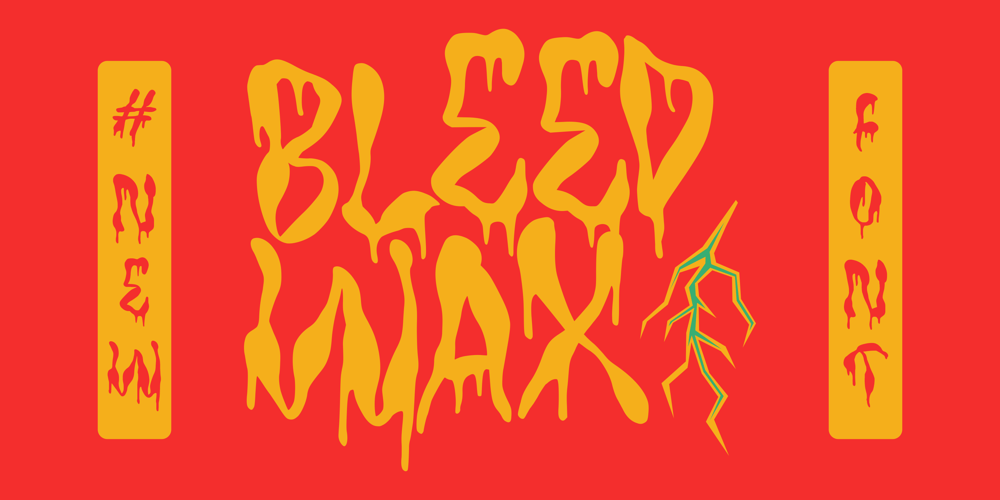
TF Bleedwax Font Family was designed by Miftahul Habib and published by Teenage Foundry. TF Bleedwax contains 1 styles and family package options. TF Bleedwax Font – an eerie and spine-chilling typeface perfectly suited for Halloween-themed designs. This font exudes a horror style, created specifically to send shivers down your spine. Each letter is meticulously crafted to resemble dripping blood, giving your designs a blood-curdling and macabre feel. With its gory and unsettling appearance, “TF Bleedwax” font is sure to add a terrifying touch to any Halloween project, horror movie poster, haunted house flyer, or spooky party invitation. Let this font unleash a wave of fear and make your designs stand out in the dark and creepy night.Multilingual contained: Afrikaans, Albanian, Asu, Basque, Bemba, Bena, Breton, Catalan, Chiga, Cornish, Danish, Dutch, English, Estonian, Filipino, Finnish, French, Friulian, Galician, German, Gusii, Indonesian, Irish, Italian, Kabuverdianu, Kalenjin, Kinyarwanda, Luo, Luxembourgish, Luyia, Machame, Makhuwa-Meetto, Makonde, Malagasy, Manx, Morisyen, North Ndebele, Norwegian Bokmål, Norwegian Nynorsk, Nyankole, Oromo, Portuguese, Quechua, Romansh, Rombo, Rundi, Rwa, Samburu, Sango, Sangu, Scottish Gaelic, Sena, Shambala, Shona, Soga, Somali, Spanish, Swahili, Swedish, Swiss German, Taita, Teso, Uzbek (Latin), Volapük, Vunjo, Zulu.For any questions please contact me 🙂Thanks!